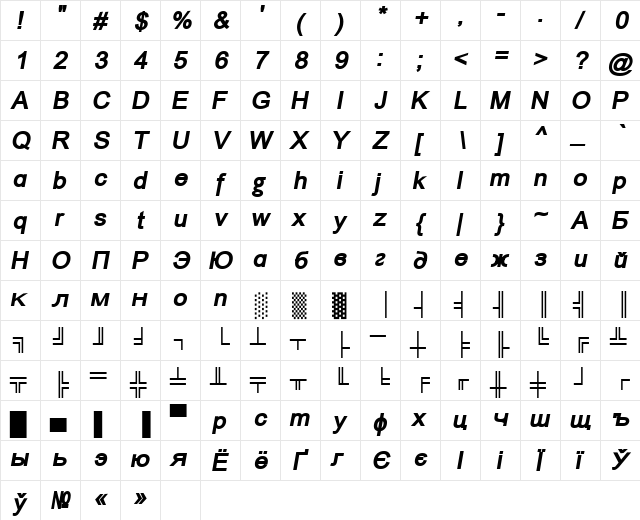
ER Univers 866 Bold Italic
Design Context for ER Univers 866 Typeface
ER Univers 866 is a composed and adaptable typeface that performs quietly and consistently across a wide range of design contexts. The dynamic lean of this cut emphasises speed and emphasis in any layout. Its bold stroke weight gives it real presence on the page.
Pro Tip: Use ER Univers 866 for emphasis, pull quotes, and subheadings where its slanted energy can add rhythm to the layout.